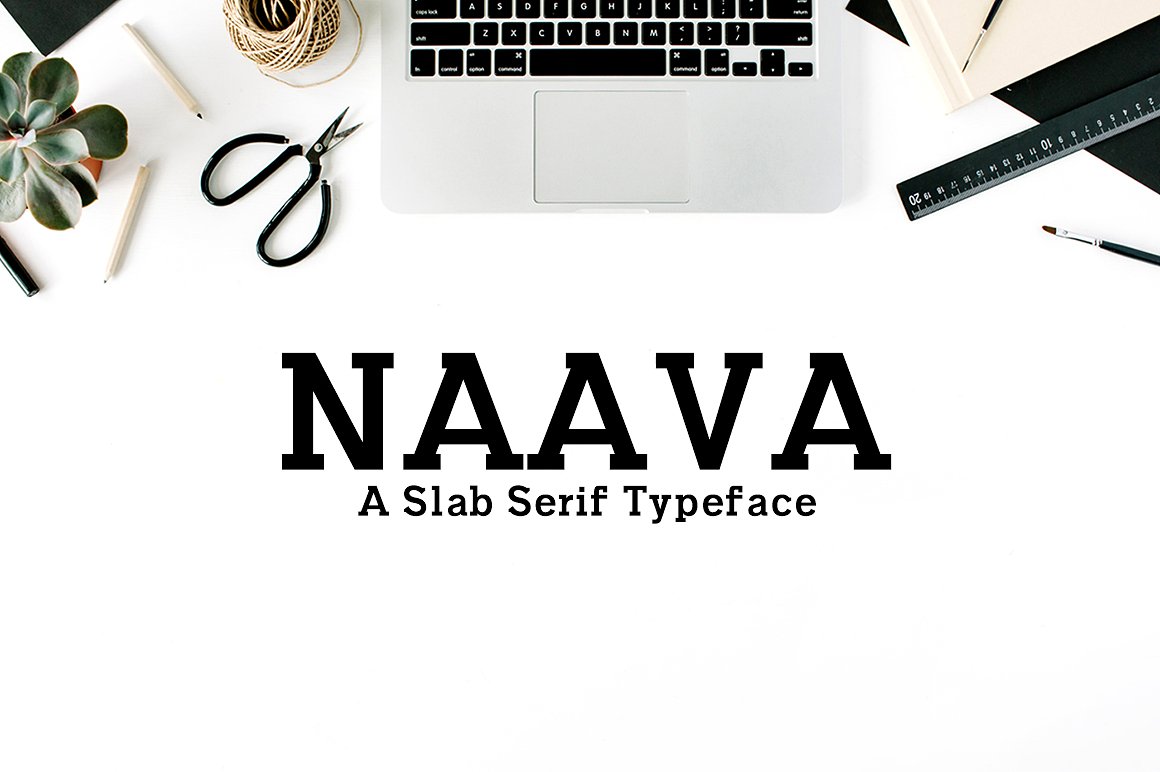
Naava Slab Serif Font
Naava Typeface
Naava A Slab Serif Typeface
Naava A Slab Serif Font is a set of 3 weights and it is good for making creative displays and it has slab serif font. It’s a lovely and unique slab serif font in our store, allowing you to make each word look completely stylish!